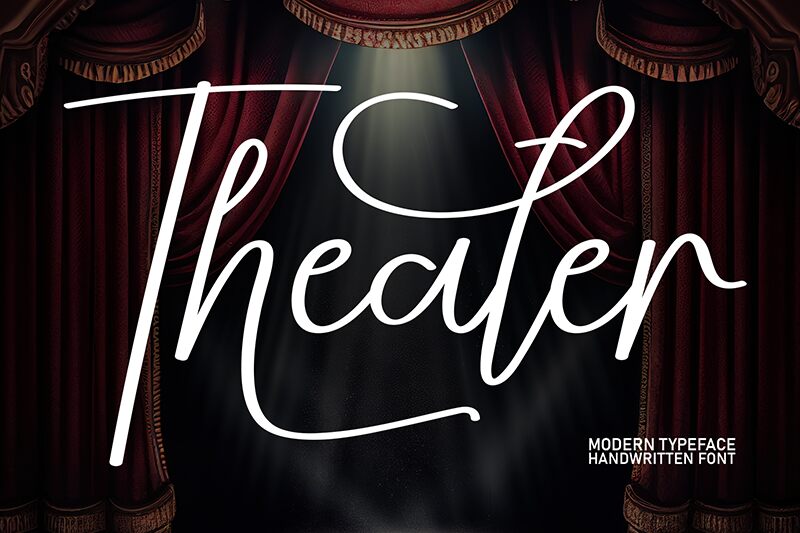
Theater
Theater font by Scratchones is a free handwritten script typeface that captures the ease of a quick, confident signature. Its slender strokes, gentle slant, and looping connections feel like ink flowing from a fine-tipped pen, giving your text an intimate, human touch without looking messy or childish. There’s a light, theatrical flair in the sweeping capitals and playful exit strokes that makes each word feel like a title on a marquee.
Using Theater, this free font shines on wedding invitations, save-the-dates, boutique logos, social media posts, product packaging, blog headers, and quote graphics. The rhythm between letters stays airy and readable even at smaller sizes, while larger settings show off those elegant curves and flourishes. Pair this script with a clean sans serif in all caps for supporting text to keep layouts balanced and modern.